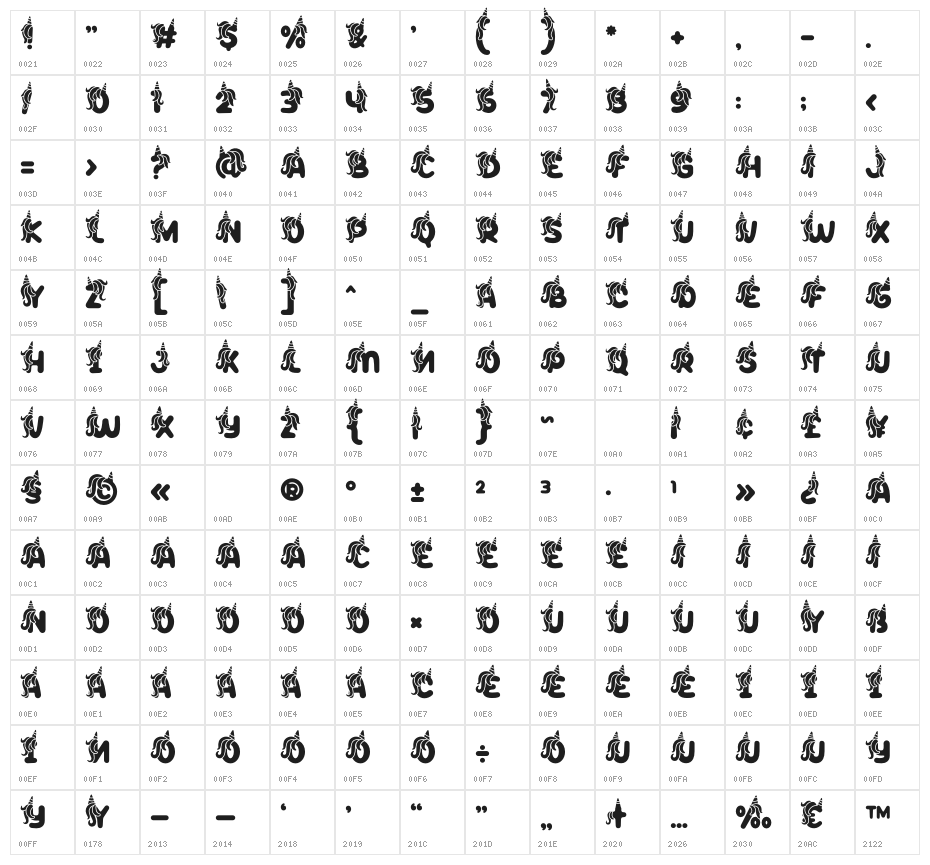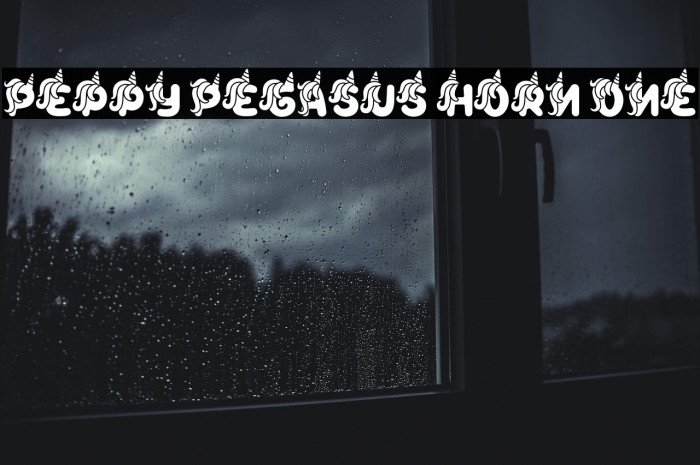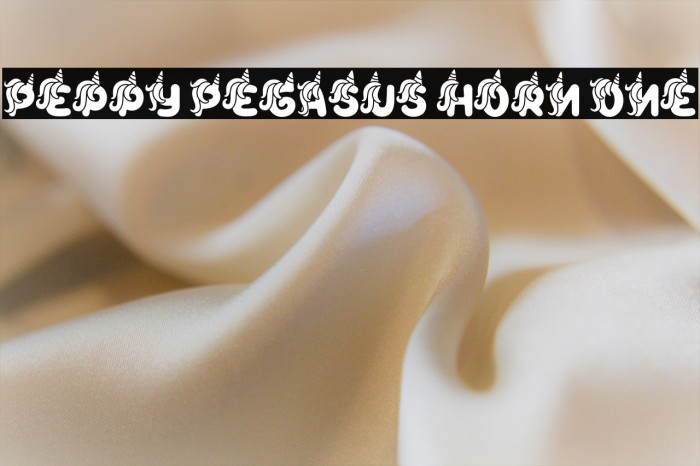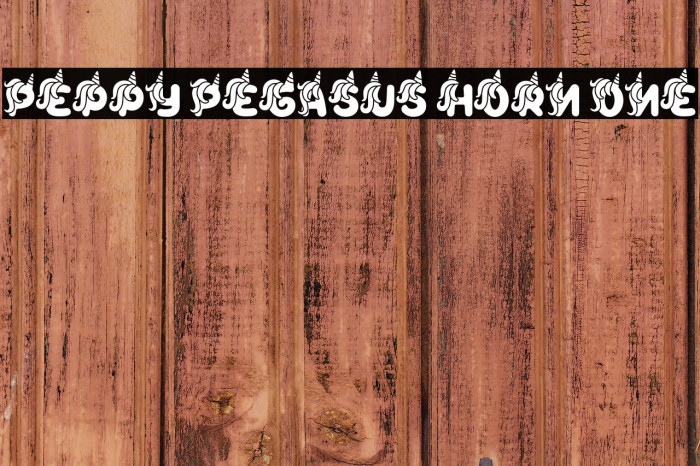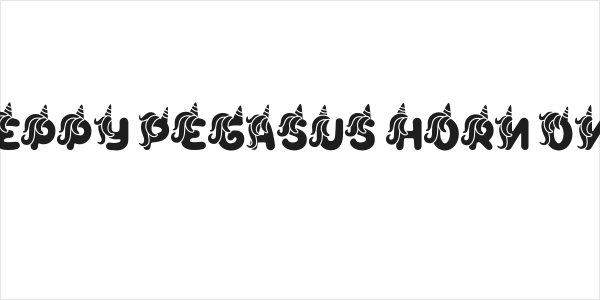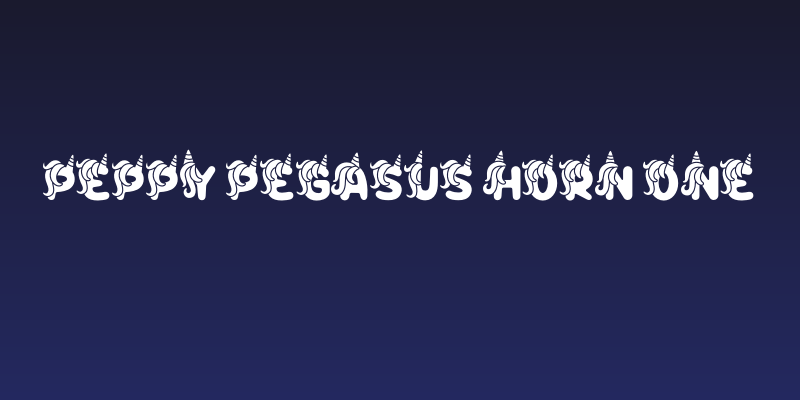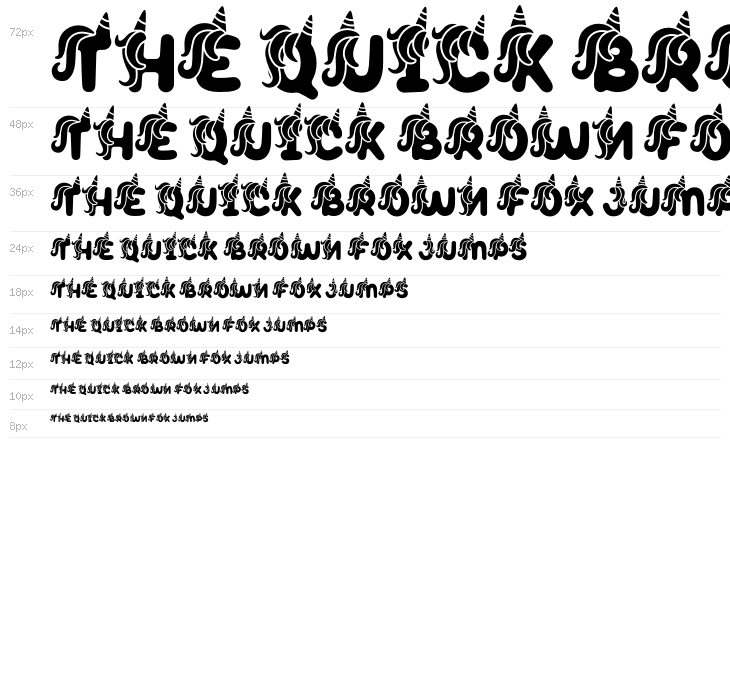
Peppy Pegasus Horn One Font
Peppy Pegasus Horn One Description
This whimsical and playful font features a unique design where each character is adorned with a unicorn horn and mane, creating a magical and enchanting appearance. The bold, rounded letters are filled with intricate details that evoke a sense of fantasy and wonder. The font's decorative elements make it stand out, capturing attention with its imaginative style. The characters are well-defined, with consistent strokes that maintain readability while offering a distinct artistic flair. This font is perfect for projects that aim to convey a sense of fun, creativity, and magic, appealing to audiences who appreciate fantasy and mythical themes.
| Proposed Projects | Ideal for children's book covers, fantasy-themed event invitations, playful branding, and whimsical posters. |